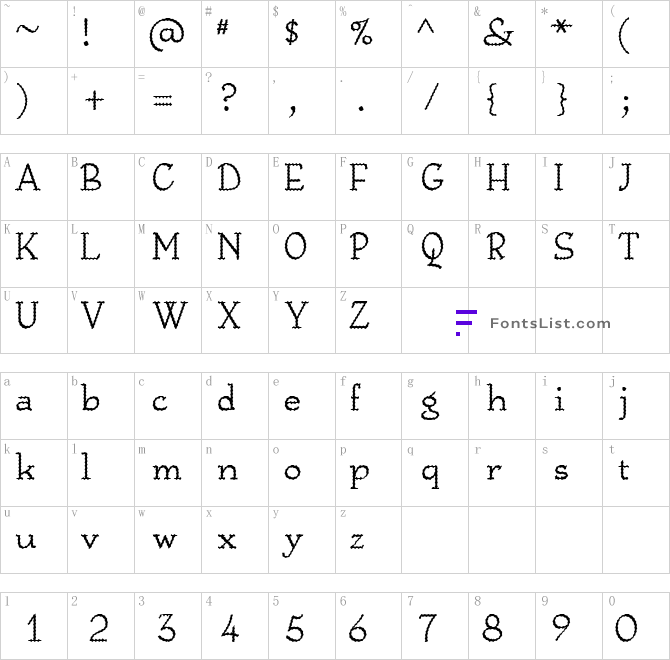
- Font Name:AnarckhieJiggled
AnarckhieJiggled.ttf is a very beautiful artistic font, AnarckhieJiggled.ttf is widely used in the design and printing of various books and pictures,AnarckhieJiggled.ttf has a strong visual impact,AnarckhieJiggled.ttf is a commonly used font in newspapers, magazines and books, and is used in posters, e-commerce Poster design, store design, logo design, font design and other fields.AnarckhieJiggled.